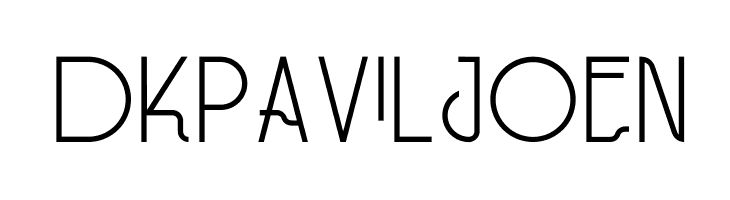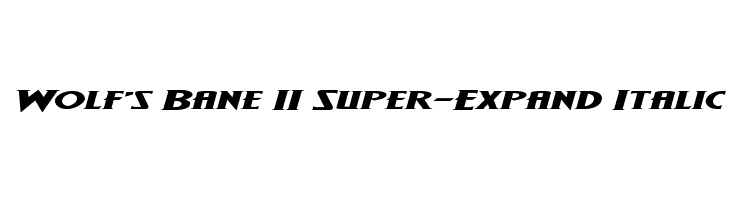
( Hanoded - David Kerkhoff - www.hanodedfonts.com )
A modern, geometric font with clean lines and circular elements.
A bold, italicized, and futuristic font with geometric design and strong visual impact.
( imagex - www.imagex-fonts.com )
A bold, playful font with a three-dimensional, comic book style.
( House of Vegas )
A bold, abstract font with geometric shapes and a futuristic aesthetic.
( London's Letters - www.londonsletters.com/ )
A decorative font with bold letters and intricate floral embellishments.
A bold, outlined font with a modern and eye-catching design.
A bold, handwritten-style font with a playful and dynamic appearance.
A playful collection of dingbats featuring childlike drawings and decorative elements.
A bold, retro-inspired font with rounded, outlined characters.
A bold, distressed font with a rugged, grunge-like appearance.